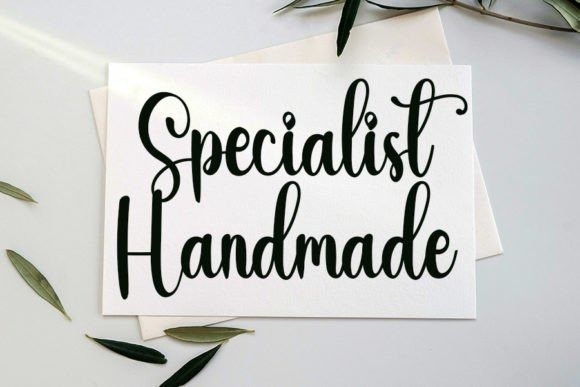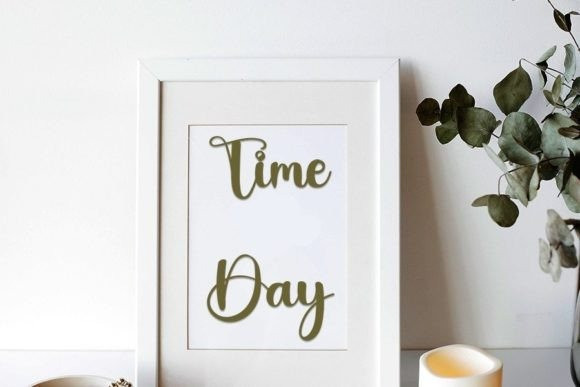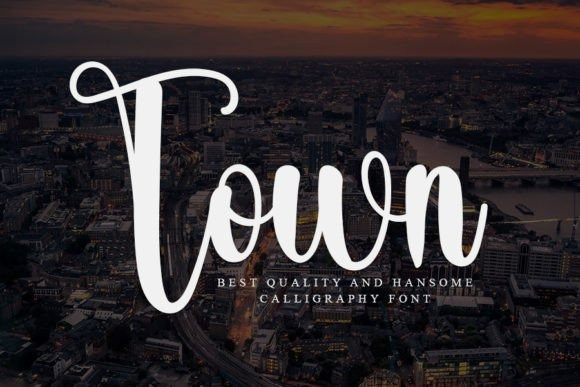
Town Calligraphy Font
Town Calligraphy Font is a beautiful and refined script font. It has a classy, elegant, and modern look that can be used for logos, branding, invitations, stationery, wedding designs, social media posts, and much more!